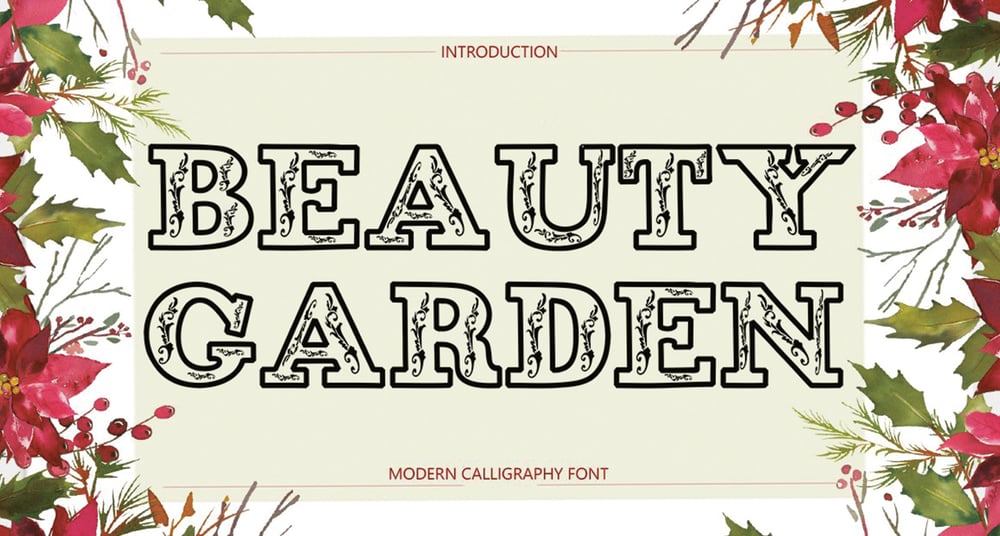
Beauty Garden
Beauty Garden font
Beauty Garden Font Family was designed by Teuku Saifullah and published by Shape Studio. Beauty Garden contains 1 styles and family package options. Beauty Garden Font it matches applies in some designs such as the logotype, brand, packaging, quotes, poster, t-shirt, invitation and more custom design. The features uppercase, lowercase, numeral, punctuation & symbol, multilingual support.rush